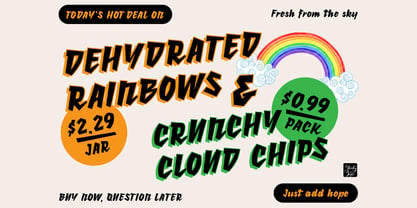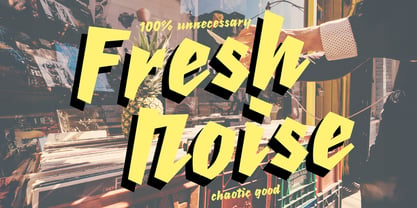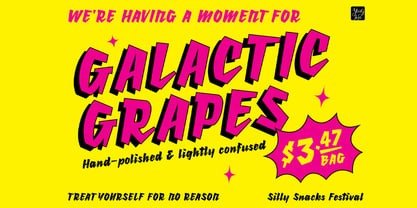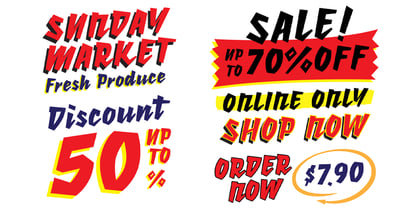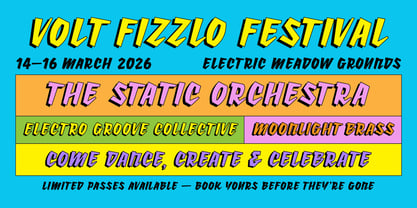
YJC Volt Fizzlo
The YJC Volt Fizzlo Font Family was designed by Yenty Jap and published by Yenty Jap Co. YJC Volt Fizzlo contains 1 styles. More about this family
Meet YJC Volt Fizzlo, the bold little spark that just couldn’t sit still. Every letter leans forward like it’s cheering you on — “Go on, you’ve got this!” — and honestly, that’s exactly the energy it brings to your designs. It’s confident, playful, and full of that charged-up charm that makes people stop scrolling and pay attention (in the friendliest way, of course). With its chunky strokes, sharp angles, and lively slant, YJC Volt Fizzlo is perfect for projects that need a loud-but-loving voice: • eye-catching logos and branding, • bold posters, album covers, sports graphics, • fun social media layouts, • stylish merch & apparel, • modern invitations & event designs, and • any moment where your message deserves a little extra electricity and a warm hug on the side. It’s honest, energetic, and ready to help your words stand tall, shine bright, and swing in style. Go ahead — plug it into your project and watch the sparks fly.